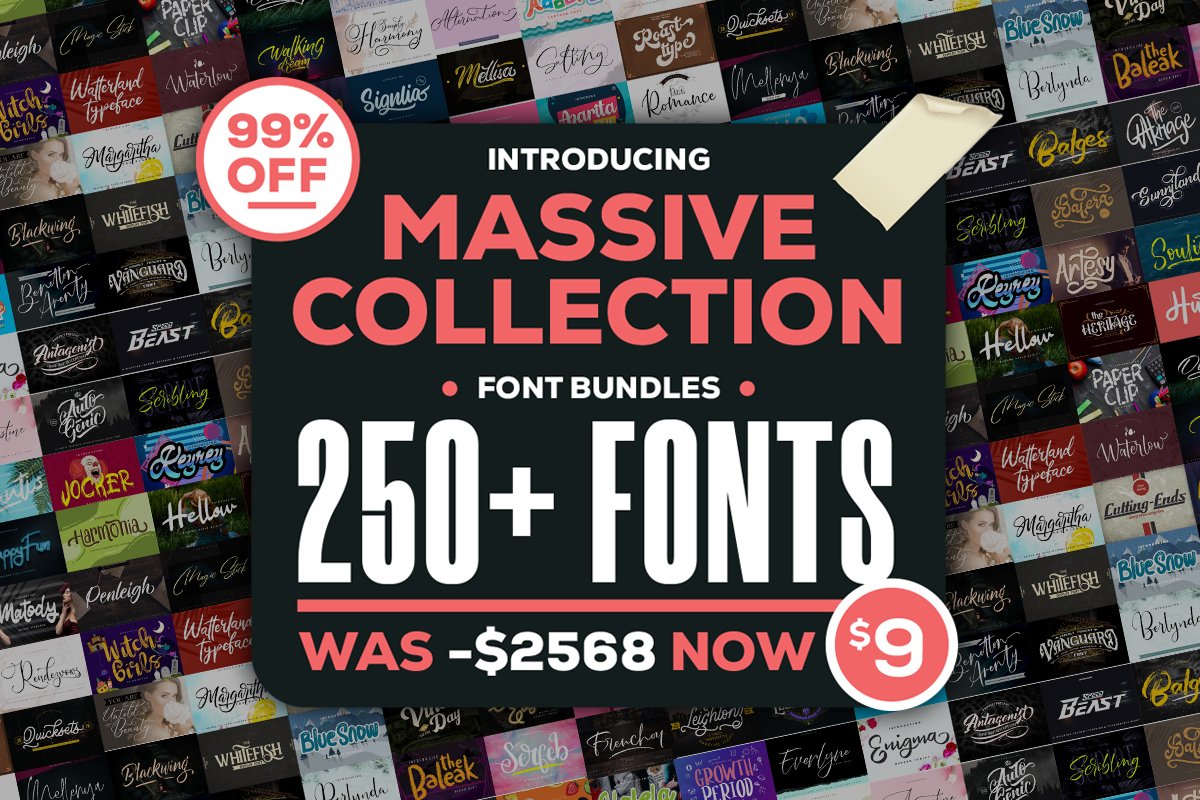
Massive Collection Fonts Bundle
Unlock extraordinary creative potential with this massive collection of over 250 specially designed English fonts, focusing on beautiful and unique handwritten styles. This comprehensive bundle offers graphic and typographic designers an unparalleled palette of authentic handwriting effects that bring realistic, human warmth to every project.
The collection features:
Diverse Handwritten Styles:
- Casual, everyday handwriting with authentic imperfections
- Elegant calligraphy for sophisticated designs
- Expressive brush lettering with dynamic character
- Personal signature fonts for authentic branding
- Playful, whimsical handwriting for informal projects
- Vintage-inspired scripts with nostalgic charm
- Modern handwritten faces with contemporary flair
Creative Flexibility:
Each font in this bundle offers unique characteristics:
- Varied Line Weights: From delicate thin strokes to bold, expressive marks
- Different Sizes: Various x-heights and proportions for design versatility
- Unique Designs: Distinct personalities for every creative need
- Realistic Handwritten Effects: Achieve authentic, handcrafted appearance
- Maximum Flexibility: Diverse styles for any project need
These handwritten fonts are exceptionally suitable for creating diverse and creative styles across all types of graphic projects. Whether you’re designing for clients or personal creative expression, this collection gives your work a special vitality and visual authenticity that standard fonts cannot match.
Key Features of This Handwritten Collection:
- 250+ Unique Handwritten Fonts: Extensive variety of styles, weights, and sizes.
- Authentic Handmade Feel: Realistic handwriting that adds warmth and personality.
Massive Collection Fonts Bundle is here with an incredible selection of +250 fonts over 246 different products.
This bundle has a wide range of typeface styles from modern calligraphy, monoline scripts, dry brush handwriting, grunge, rustic, elegant serif, clean sans serif, watercolor, cartoonish, horror, signature style, logotype… you name it!